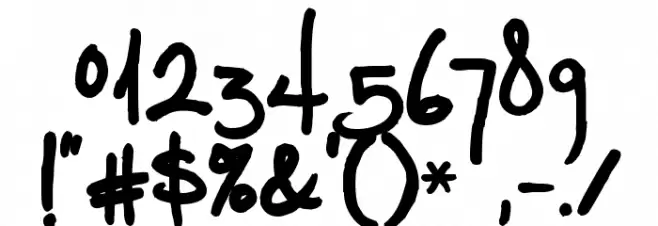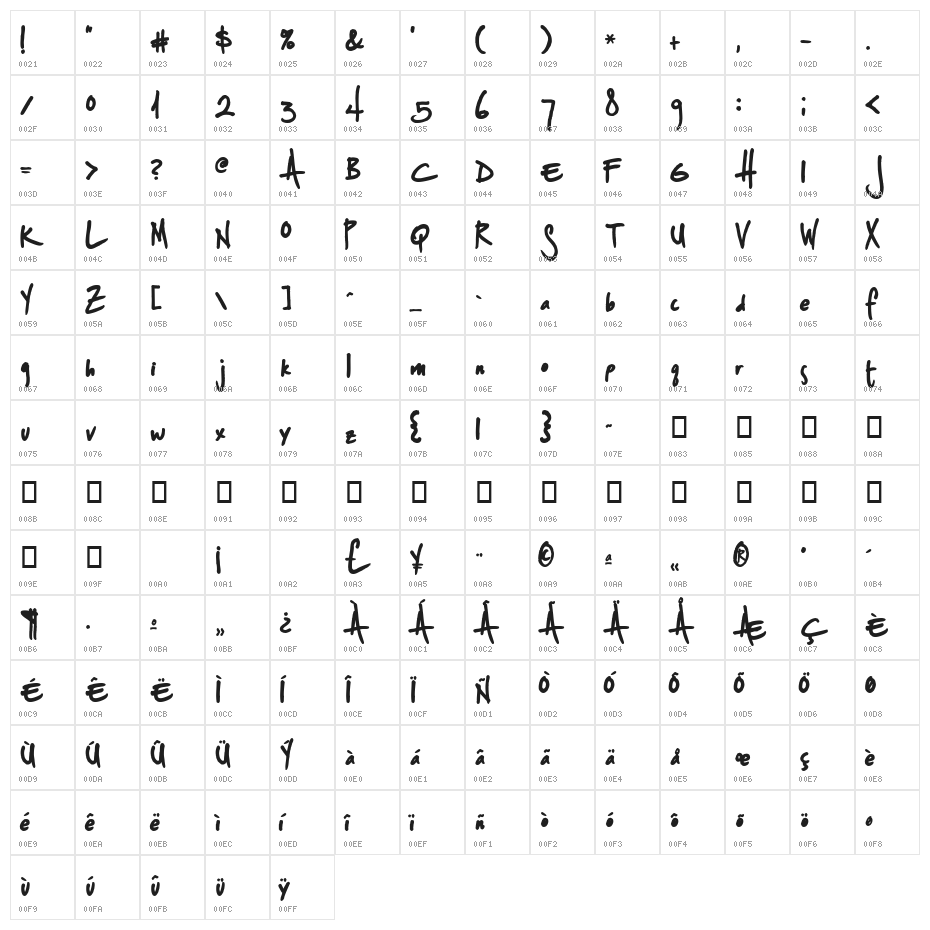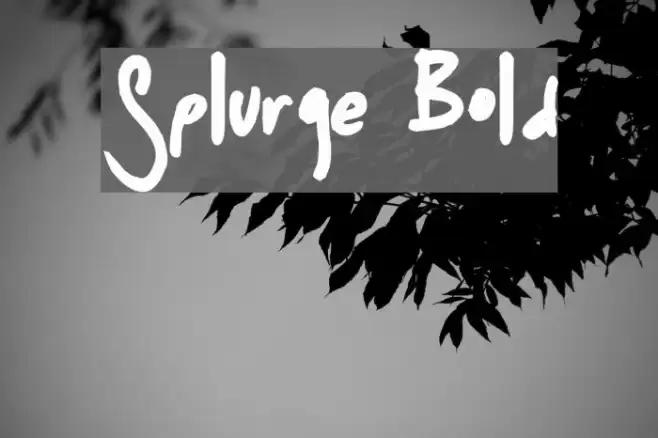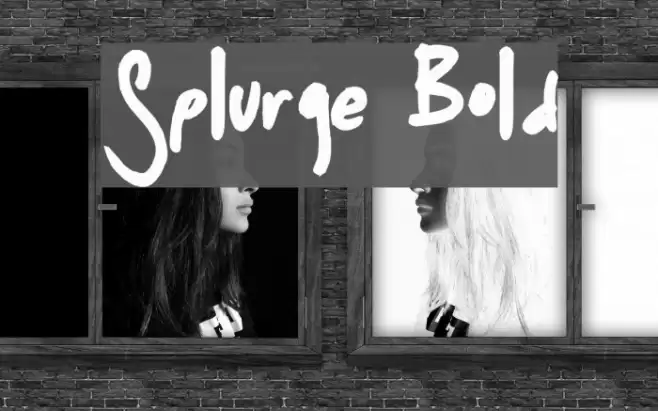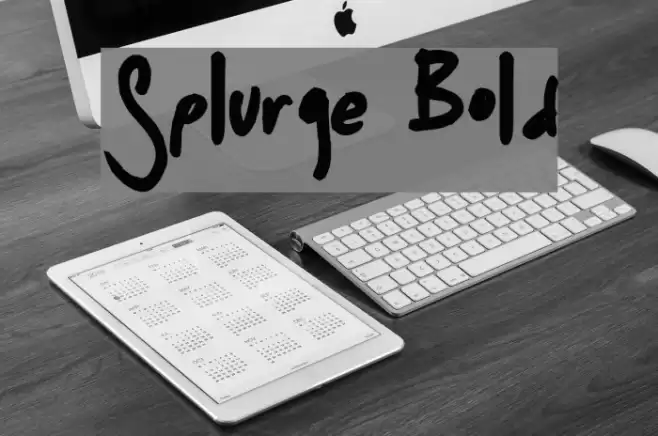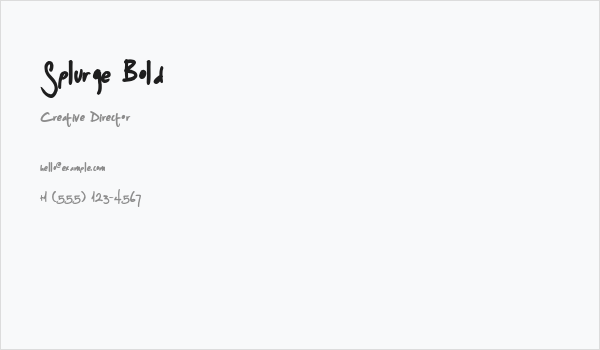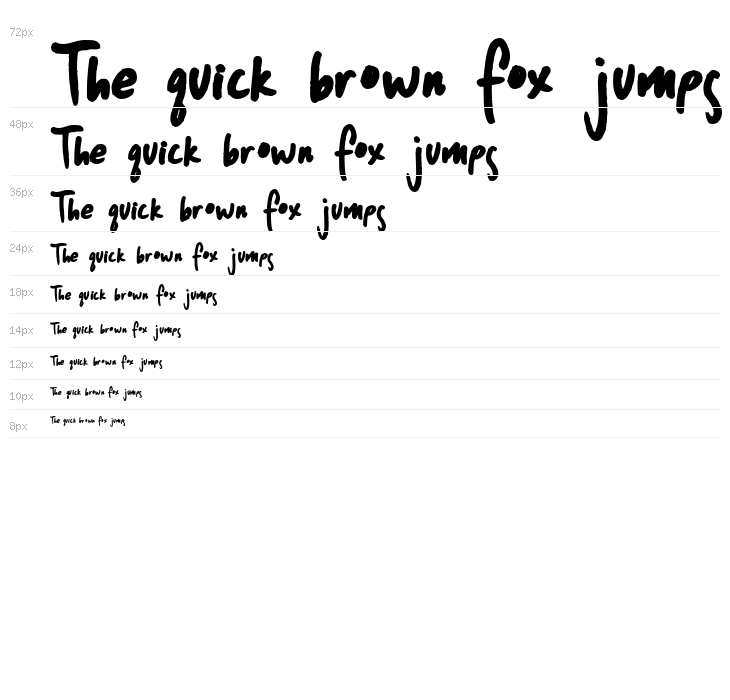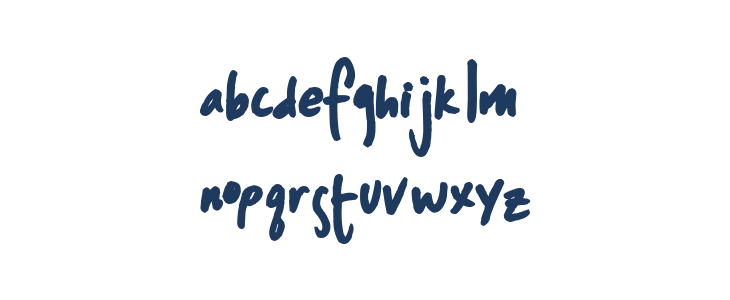
Splurge Bold Font
Splurge Bold Description
This font exudes a playful and energetic vibe with its bold, handwritten style. The characters are slightly irregular, giving it a casual and informal appearance. The uppercase letters are tall and assertive, while the lowercase letters maintain a consistent flow, adding to the font's dynamic nature. The numbers and special characters are crafted with the same lively spirit, making them stand out. This font is perfect for projects that require a personal touch or a sense of spontaneity. Its bold strokes and unique character shapes make it ideal for eye-catching designs.
Proposed ProjectsGreat for posters, greeting cards, social media graphics, and branding that requires a personal touch.